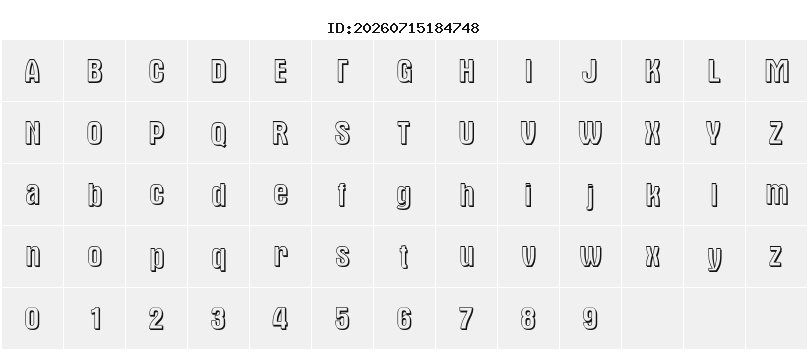
a_AlternaSh Preview
• Font Name: a_AlternaSh
• Font ID: Macromedia Fontographer 4.1 a_AlternaSh
• Full Font Name: a_AlternaSh
• Version: Macromedia Fontographer 4.1 27.08.97
• PostScript Name: AAlternaSh
• Character Count: 193
About a_AlternaSh.ttf
a_AlternaSh.ttf is a modern, elegant sans-serif font designed for ultimate readability and visual harmony. Perfect for branding, headlines, web design, and print materials.